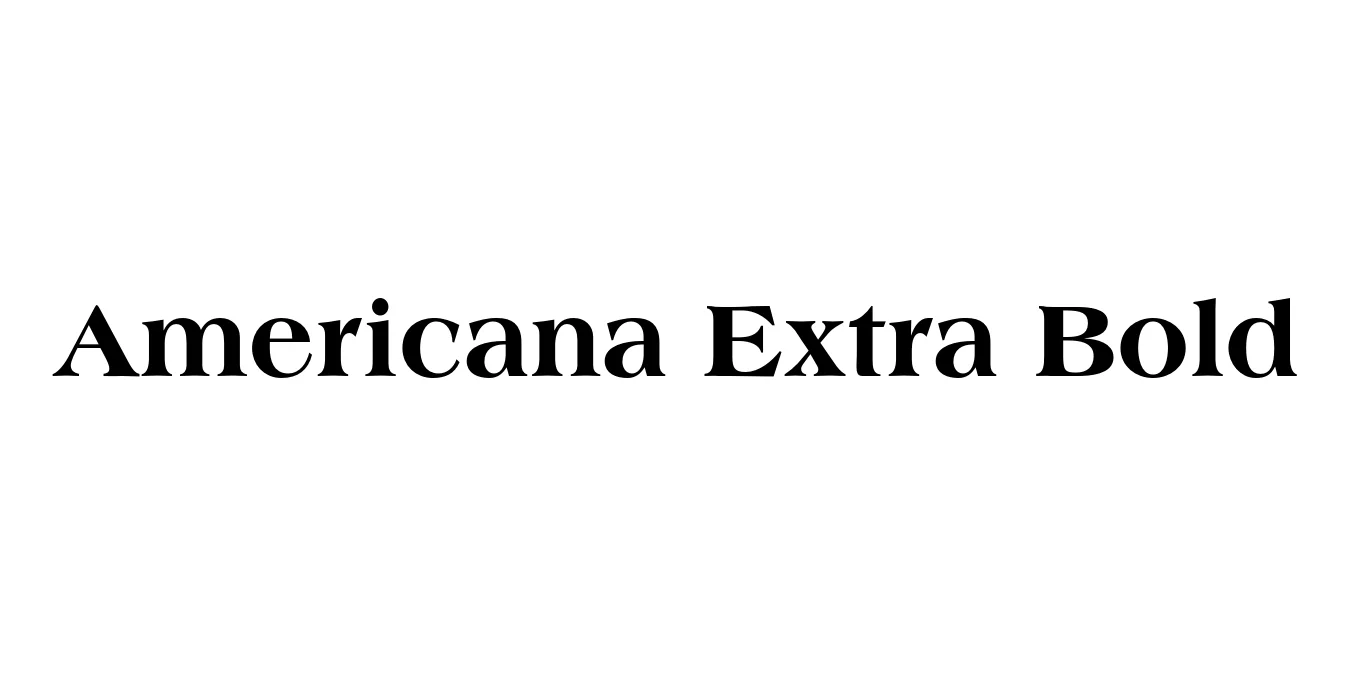
Americana Extra Bold
Designed by Richard Isbell
Americana Extra Bold was designed in 1965 by Richard Isbell for the American Type Founders (ATF). The typeface was specifically commissioned to commemorate the upcoming bicentennial of the United States, which is reflected in its name and monumental presence. It is characterized by an exceptionally large x-height, short ascenders and descenders, and distinctively wide, flared serifs that give it a sturdy and authoritative appearance.
The Extra Bold weight is the most impactful version of the family, offering a heavy, high-contrast look that maintains excellent legibility at large display sizes. Because of its wide stance and unique historical charm, it has been a favorite for decades in advertising, cinematic titling, and logo design. It combines a sense of mid-century modernism with classic American craftsmanship, making it a timeless choice for bold typographic statements.
Americana Extra Bold Best Uses
Commanding and impactful for newspaper headers and editorial titles.
Creates a strong sense of heritage and authority for brand identities.
Adds a premium, established feel to product labels and boxes.
Highly legible and visually striking for large-format display media.